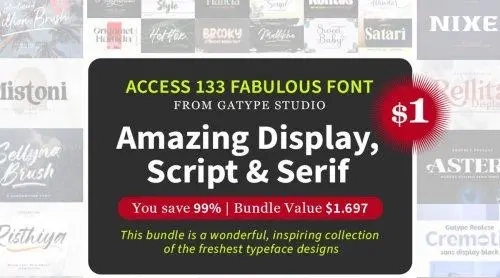
Fabulous Font Collection Bundle
Introducing the Fabulous Font Collection Bundle, a carefully curated selection of diverse typefaces designed to elevate your design projects. This bundle includes a variety of font styles, ranging from elegant serifs to modern sans-serifs, ensuring you have the perfect typography for any occasion.
• Multiple font styles: serif, sans-serif, script, and display
• Various weights: light, regular, bold, and extra bold
• Easy to read and versatile for different applications
This collection includes:
• Elegant serif fonts for branding and print media
• Clean sans-serif fonts suitable for web and UI design
• Stylish script fonts perfect for invitations and creative projects
• Unique display fonts to make your headlines stand out
• Utilize different weights for hierarchy in your designs.
• Combine serif and sans-serif fonts for a balanced look.
• Use script fonts sparingly to highlight key elements.